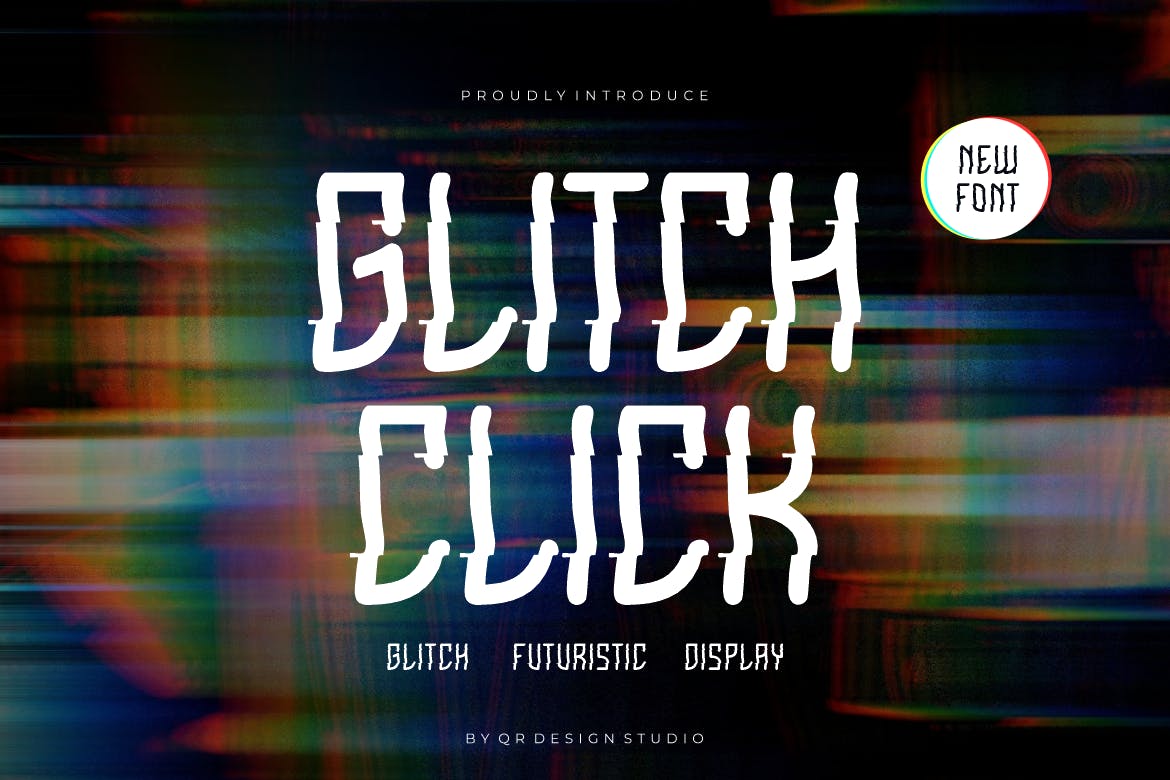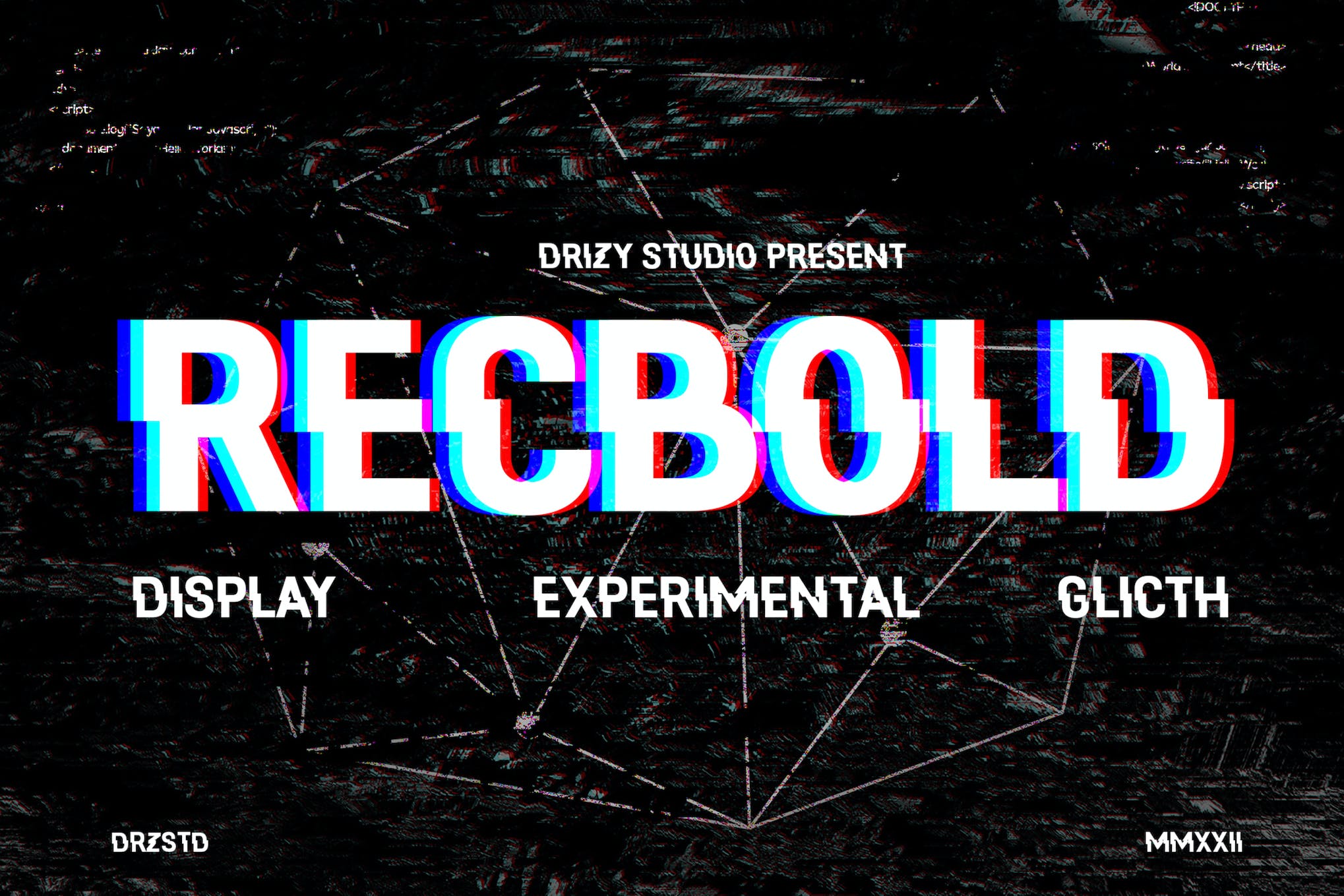
25+ Best Glitch Fonts for Distorted and Digital Effects
Step into the world of digital distortion with our curated introduction to the best glitch fonts. This collection is specifically assembled for those who strive to create artwork with an unconventional, futuristic spin. From graphic designers to multimedia artists, this compilation is designed to ignite inspiration for any project that demands a touch of digital disruption.
The world we inhabit today is rapidly evolving, and conventional designs are constantly being challenged. Fonts with glitch and distorted effects offer a unique aesthetics that are perfectly in tune with today’s trendy futuristic vibes. These fonts provide a distinctively modern expression; a vivid illustration of a digital world grappling with bugs and system errors.
Whether you’re on the hunt for free or paid options, our list accommodates a diverse spectrum of budgets and stylistic preferences. Unearthing the perfect font to encapsulate your vision just got easier. Let these proud flaunts of imperfections breathe life into your next project, and achieve the perfect manifestation of distorted reality.
Glitch Shoot – Glitch Font
Glitch Shoot is a unique display font, drawing inspiration from cyberpunk aesthetics and glitch art. This uppercase, edgy font gives a feeling of being amidst a high-tech city chaos, with its distorted, flickering lettering. Providing multilingual support, ligatures, and more features, Glitch Shoot adds a powerful impact to logos, posters, branding materials, and other designs.
Vorcas Glitch – Glitch Font
Vorcas Glitch is an innovative font style designed to mimic digital glitching effects. Its sleek, futuristic shape makes it an ideal pick for creative endeavors like logos, advertisements, stationery, and branding projects with a contemporary or sporty touch. The package includes regular and italic forms.
Stereovario – 2-in-1 Glitch Font
Stereovario 2-in-1 glitch font is a modern typeface featuring glitch art and prism-inspired designs. It perfectly incorporates depth and dimension into each letterform. Its unique aesthetics add a captivating touch to your creations, and it is ideal for a wide array of projects including digital artwork, branding materials, and multimedia presentations.
Glanterd – Variable Glitch Font
Glanterd is an innovative Glitch font that is finely crafted to enhance your creative projects. Its distortion effects and chaotic theme break the monotony, giving your designs a unique twist. This font offers a variable character set, punctuation, numbers, and multilingual support, provided in OTF and TTF files.
Koruption – Modern Glitch Font
The Koruption is a dynamic, neo-grotesque typeface family that allows the user to dictate the degree of letter distortion. The style can transition from a clean, regular script to a distorted, glitched form. Comprising of a full character set with extra symbols and arrows, it also offers 4 static weights and a variable font.
Choco Bro – Fun and Glitch font
Choco Bro is more than just a glitch-style font; it’s a toolset for creative zeal and unbounded fun. Its bold and quirky lettering stirs a wave of innovation, turning mundane typography into an energetic party. Perfect for creating striking headlines or introducing charm into your designs, Choco Bro brings every project to life with its free-spirited essence.
Block Glitch Typeface
The Block Glitch Typeface boasts an elegant, futuristic style, perfect for a wide range of design tasks, from logos to magazine layouts. Its versatility makes it a creative staple, capable of uplifting any project it’s paired with. Try it for your up-and-coming ventures and witness its potential to make your ideas truly stand out!
Avalon Glitch Font
Avalon Glitch Font is a unique choice for those looking for a distinctive aesthetic appeal in their creations. It offers glitch-themed, uppercase multilingual letters, numbers, and punctuation. Thus, it’s perfect for adding an edgy, digital touch to your projects. As an imaginative assortment created by a third party, it comes fully recommended for its novelty and versatility.
Lucy Glitch Script
Lucy Glitch, a creativity-inspiring typeface, draws its unique aesthetic from the intriguing appearance of digital failures. Echoing the sentiment that failure can birth success, this adaptable font includes lower and uppercase letters, numbers, punctuation, and simple ligatures. Suitable for titles and quotes, it promises an appealingly unpredictable visual experience. Integrated Webfont functionality and multiple file formats add to its usability. Enjoy the beauty of the glitch with Lucy.
Glanterd Distort Glitch
Glanterd Distort Glitch is a truly unique typeface that works to break the mold of traditional design. Known for its glitch effect, this font introduces a layer of beautiful chaos into your projects that makes them pop. With its comprehensive set of characters, punctuation, numbers, and multilingual support, Glanterd offers endless design opportunities. This asset is provided in OTF & TTF formats.
System Glitch Display
Introducing System Glitch Display – a detailed and dynamic glitch-style asset specifically designed for titles and large texts. Each glyph within this font, from A to Z and 0 to 9, features uniquely incorporated glitch “lines”, making every character slightly varied and engagingly random. This uppercase, OTF format font also includes a few vital punctuation glyphs to provide a comprehensive and creative typography solution.
Debug Uppercase Glitch
Debug Uppercase Glitch is an unconventional typeface inspired by a digital glitching effect. This historic and artistic font is widely employed to simulate digital image flaws. This uppercase font, adorned with symbols, punctuation, and numerals, has a modern feel suitable for artwork, websites, branding, or game titles. The font offers multi-lingual support and includes OTF, TTF, WOFF, and WOFF2 files.
Uncracked Glitch Font
Uncracked Glitch Font is a meticulously crafted style, perfect for imbuing a sense of innovation in areas like gaming, music, movie posters, or other graphic designs. Not only does it exhibit uppercase and lowercase letters, but also symbols, punctuation, numerals, and alternate ligature. It also supports multiple languages. The file is available in OTF, TTF, WOFF, and WOFF2 formats.
Singiko Glitch Display
The Singiko Glitch Display is a unique modern typeface inspired by glitching effects in digital art. Its unconventional design represents errors or flaws, making it an iconic tool for artists seeking a digital, contemporary ambiance for their work. Useful for branding, design, gaming titles, and more, this comprehensive typeface includes uppercase, lowercase, punctuation and numeral options, ligatures, alternates, and supports multiple languages.
Recbold Experimental Glitch
The Recbold Experimental Glitch Font, provided by Drizy Studio, is a unique asset suitable for unconventional and creative projects. It offers variety with both uppercase and lowercase letters, punctuation, numbers, and multilingual support. Encourages experimentation, making it an ideal tool for innovative designers.
The Glitch Techno Font
The Glitch Techno Font is inspired by the digital age. It features a computerized aesthetic perfect for use in futuristic and science-themed designs. Ideal for magazines, movie titles, music posters, YouTube covers and social media pages, it includes basic Latin A-Z and a-z, numbers, punctuation and is compatible with PC, Mac, Adobe Illustrator, Photoshop, InDesign, and Microsoft Word without needing extra design software.
Glitchy Digital Typeface
Discover Glitchy, a digital glitch effect typeface with a hint of cyberpunk flair. Ideal for futuristic designs, Glitchy creates a unique, tech-forward aesthetic. The package includes Glitchy in TTF, OTF, and WOFF formats, making it versatile for various digital applications. Experience a different edge in typography with Glitchy.
Sharpegaze Distorted Font
Sharpegaze Distorted Font brings a fresh, visually exciting spin on traditional typography. This experimental typeface, filled with captivating distortions, is designed to push boundaries and inspire creativity. A complete character set, essential punctuation, numbers, and multilingual support make it versatile for many design projects. Explore your creative limits with Sharpegaze!
Mokoto Glitch Typeface
Mokoto Glitch Typeface is an innovative, layered font that offers a futuristic, digital glitch effect. Its design draws inspiration from modern fonts and system error imagery, giving it a distinctively unique appeal. Mokoto includes four font layers (Regular, Glitch Mark I, Glitch Mark II, and Glitch Outline Regular) that can be easily customized, and is compatible with popular software. It’s an excellent choice for web designs, print projects, logos, branding, and packaging.
Real Young Distorted Font
Meet the Real Young Distorted Font, a dynamic sans serif type featuring bold and italic styles. Ideal for posters, logos, magazine covers, banners, t-shirts, headers, or large scale artwork – it’s provided in both otf and ttf formats. Crafted by Khurasan with heart and passion, it adds a unique touch to any creative project. Try it, enjoy it and let your creativity flow.
Felix Duo Glitch Style
The “Felix Duo Glitch Style” is a sans serif font package offered in both bold and italic types. It offers two unique styles – Felix Regular, which features a captivating glitch effect reminiscent of horizontal slices, and Felix Clean, a purer variant. Ideal for creating standout posters, logos, banners, or even large-scale artwork, these fonts are designed to make your projects visibly striking.
Saberz Glitch Font
Introducing Saberz Glitch Font, a bold sans serif type with a unique glitch effect. Its horizontal piece-like structure makes it ideal for a wide range of uses, from posters and logos to magazine covers, banners, t-shirts, headers, and even large-scale artworks. The package includes Saberz.otf and Saberz.ttf file formats. Enjoy experimenting with this font by Khurasan, crafted with heart and passion!
Glitcher Sans Serif
Glitcher Sans Serif is a remarkably appealing display font featuring a unique glitch effect, guaranteeing a stunning look to any project. From logos and branding initiatives to social media posts and product packaging, its handwritten aesthetic works brilliantly. Available in various formats, with standard glyphs and ligatures, it’s easy to install on both PCs and Macs. Moreover, Glitcher is accessible on Adobe Illustrator, Photoshop, InDesign, and Microsoft Word. Thanks to PUA Encoding, no extra design software is necessary. Plus, it supports multiple languages. Enjoy enhancing your projects with Glitcher!
Glitch Click Cyber Font
Glitch Click Cyber Font is a striking, authentic display font with a decorative, futuristic feel. Ideal for an array of branding projects, from posters to logos and sports, this font shines in diverse contexts. The package includes Glitch Click in .OTF, .TTF, and .WOFF formats, offering a versatile selection for various design needs.
Glitch Blazing Typeface
The Glitch Blazing Typeface is a contemporary and unique display font, ideal for a variety of branding projects including posters, logos, and sports marketing. It stands out in diverse contexts and comes in .OTF, .TTF, and .WOFF formats, making it versatile for different design uses.
No Signal Font
No Signal Font is an intriguing display typeface featuring a unique glitch effect. Inspired by the pop culture of the 80s, like movie posters and TV shows, it effortlessly provides retro charm to your designs. Ideal for sizeable headers or captivating text blocks, this font is a fun and versatile tool to elevate your creativity.
Cyber Glitcher Typeface
The Cyber Glitcher Typeface is a uniquely decorative and genuine display font that’s perfect for a variety of branding projects, from posters to sports logos. Its versatility makes it outstanding in multiple contexts. The package includes the font in OTF, TTF, and WOFF formats to cater to different design needs.
Glitch Conie Font
Glitch Conie Font is a versatile and unique asset suitable for various design purposes. Its distinct style is perfect for a various applications such as labeling, movie scenes, poster designs, movie titles, gigs, album covers, and logos. Available in OTF, TTF, and WOFF formats, it’s a fantastic addition to your font collection.